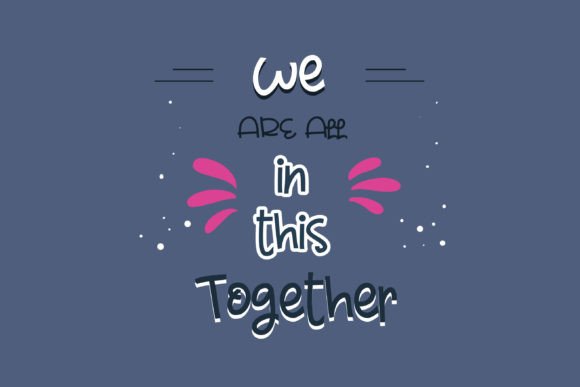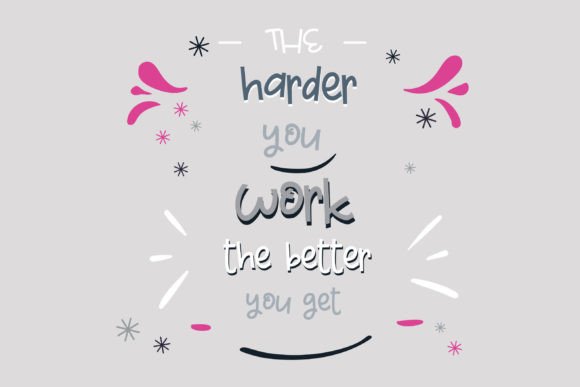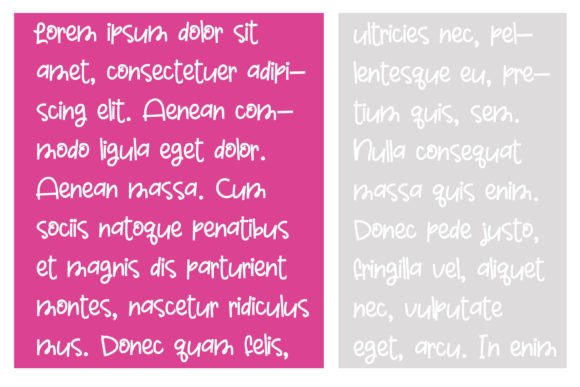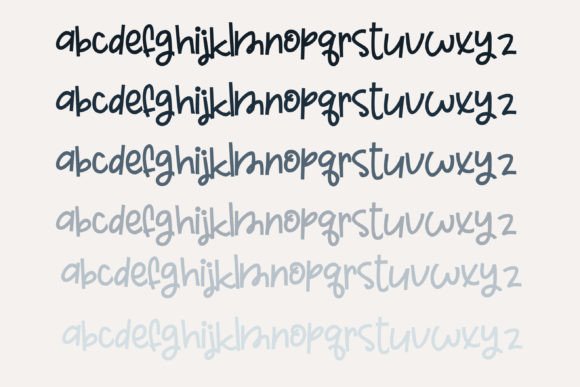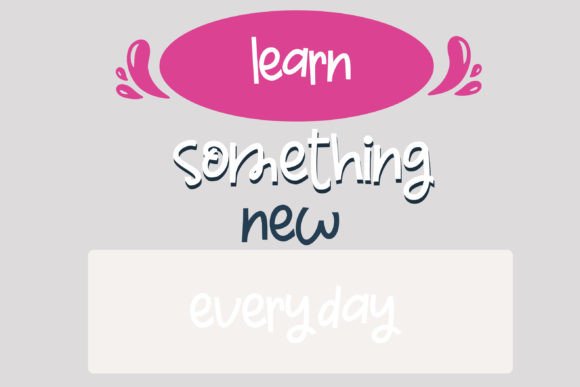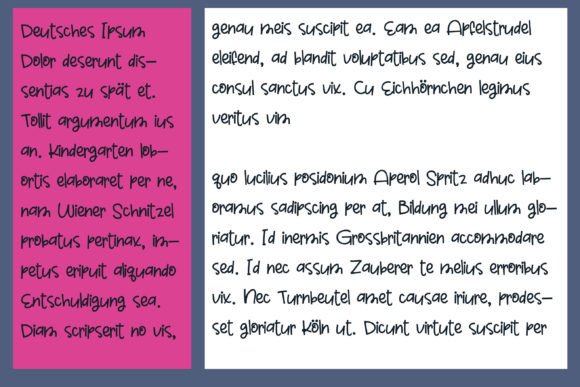
Introduction to Harumph Font
Have you ever stared at a blank canvas, struggling to find the perfect font to bring your creative project to life? You’ve scrolled through countless options, but nothing seems to capture the essence of your idea. That’s where the charming Harumph Font comes in – a quirky and whimsical handwritten font that adds a dash of fun to your designs.
With its offbeat, almost childlike style, the Harumph Font has a light, bouncy feel that’s perfect for adding a touch of personality to your work. Whether you’re working on a free download project or a high-quality design resource, this font is sure to bring a smile to your face and inspire your creativity.
Key Features of Harumph Font
- High-quality, professional font design perfect for creative projects
- Unique, bold design with a distinctive flair, setting it apart from other fonts in the market
Honest Review: Harumph Font
What works well: ✨ The Harumph Font has a unique, quirky charm that adds character to any design. The font is highly customizable, allowing me to tweak the spacing and style to fit my project’s needs. The free download option is also a major plus, making it easily accessible to designers of all levels.
Limitations: ⚠️ While the Harumph Font is a great addition to any design, it may not be the best choice for projects requiring a more formal or professional tone. Additionally, some users may find the font’s quirks a bit too unconventional.
Overall impression: I’ve been using the Harumph Font in various design projects, and I’m consistently impressed by its versatility and high quality. With its transparent background and high-quality design, it’s a great resource for designers looking to add some creative flair to their work.
- Unique and quirky design
When using the Harumph Font, consider the following tips: use it in bold font sizes to make a statement, pair it with other fonts for a unique look, and experiment with different font colors to add depth to your design.
The Harumph Font is a versatile design resource that can be used in a variety of creative projects, including logos, branding materials, and marketing materials. Its high-quality design and transparent background make it an ideal choice for designers looking for a unique and professional look.
Yes, the Harumph Font is designed to work well with a transparent background. Since it has a clear and legible design, it can be easily layered over any background image or color. This makes it an ideal choice for creative projects that require a high level of customization.